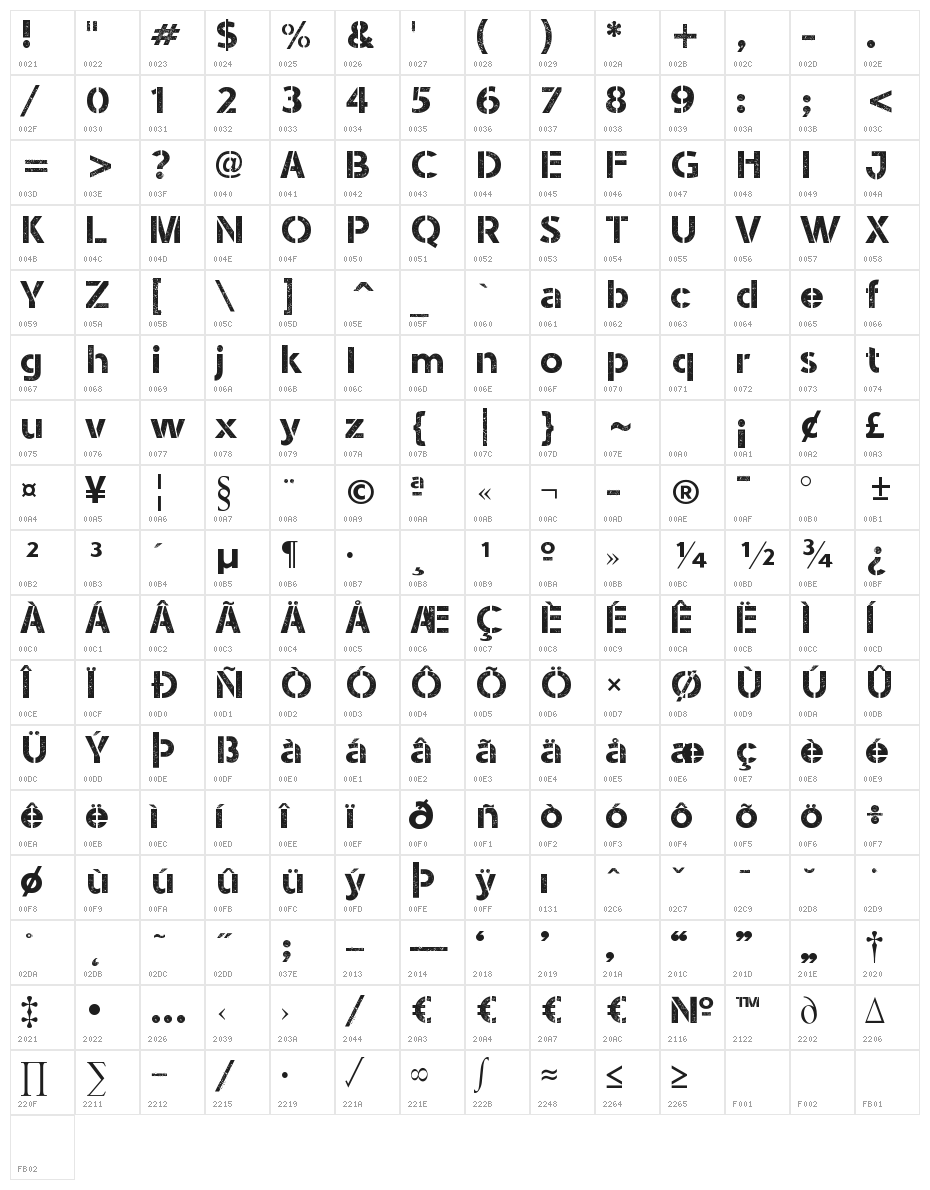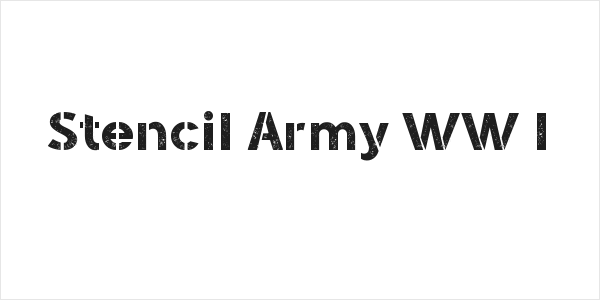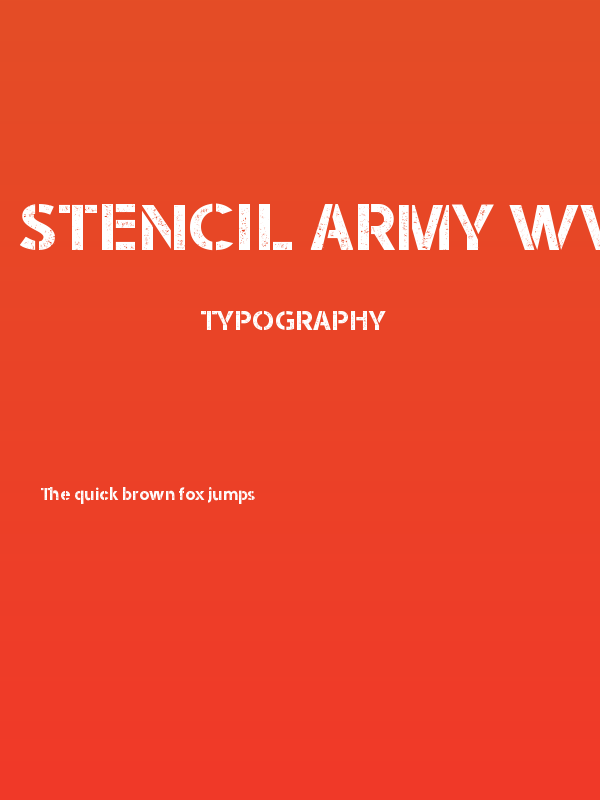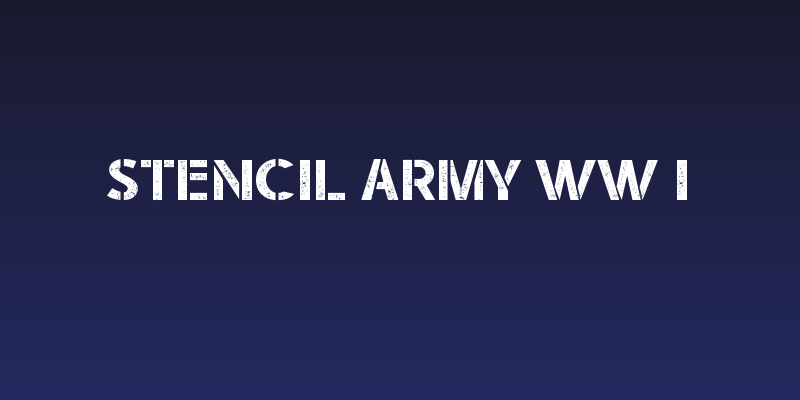
Stencil Army WW I Font
Stencil Army WW I Description
This font embodies a rugged and utilitarian aesthetic, reminiscent of military stencils used during the early 20th century. The characters are bold and impactful, with a distressed texture that adds a vintage, worn-out feel. Each letter is designed with clear, sharp edges and a uniform thickness, creating a sense of strength and durability. The uppercase and lowercase letters maintain a consistent style, while the numerals and special characters complement the overall theme. The font's distinct appearance makes it ideal for projects that require a strong, authoritative presence.
Overall StyleVintage
Proposed ProjectsIdeal for military-themed designs, posters, branding, and packaging that require a strong, vintage look.